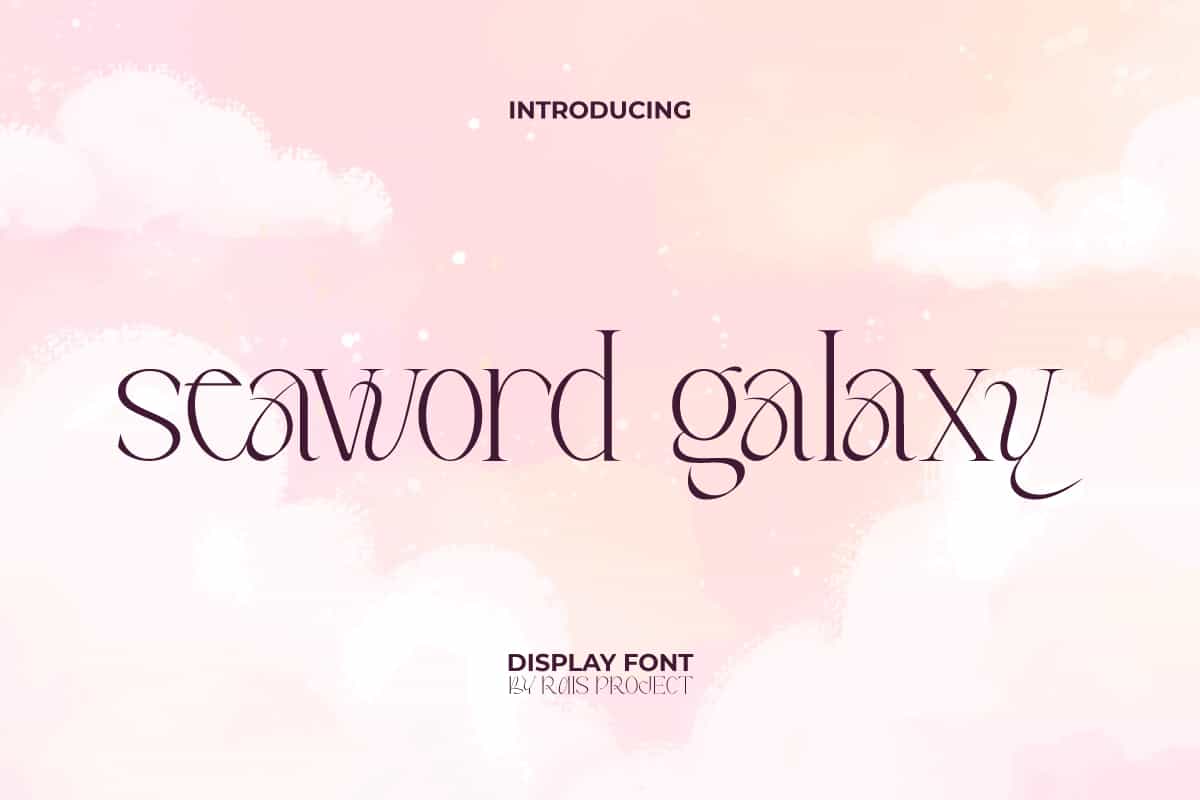
Seaword Galaxy Font
Seaword Galaxy Font is a fancy and sleek display font that will make your designs looks aesthetic!
Seaword Galaxy Font is a fancy modern serif display font, by RaisProject. This display font has thin and flowy lines with unique concept that make it look luxurious. It will be good for any designs, such as brand image, cover, custom design, greeting card, invitation, label, poster, product packaging, quotes, signage, stationery, web, and more! You can see the demo font below, input any word you want so you can see what it looks like:
Seaword Galaxy Font includes a full set of Uppercase and Lowercase Letters, Numerals, Punctuation, and Symbol. This beautiful font will be suitable for various industries, such as accessories, advertisement, event or wedding organizer, fashion, florist, homeware, perfume, photography, printing, publishing, real estate, etc. What you get: